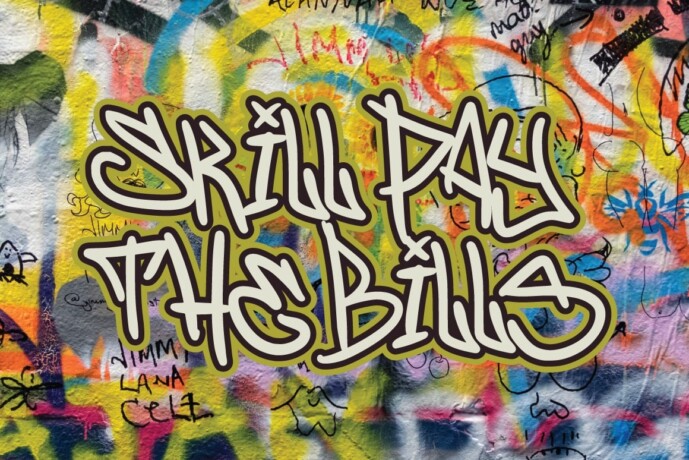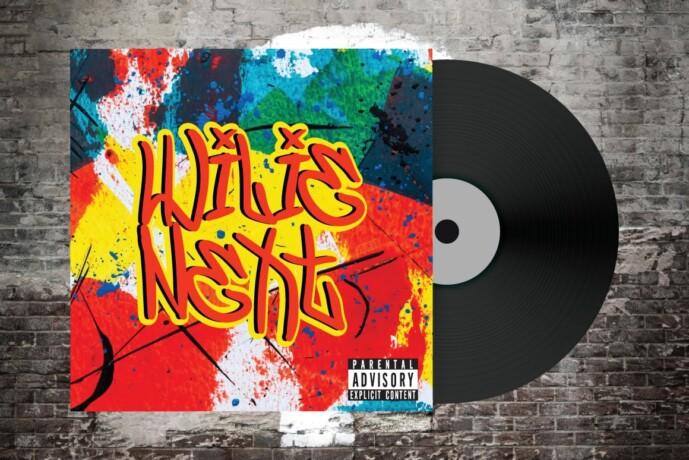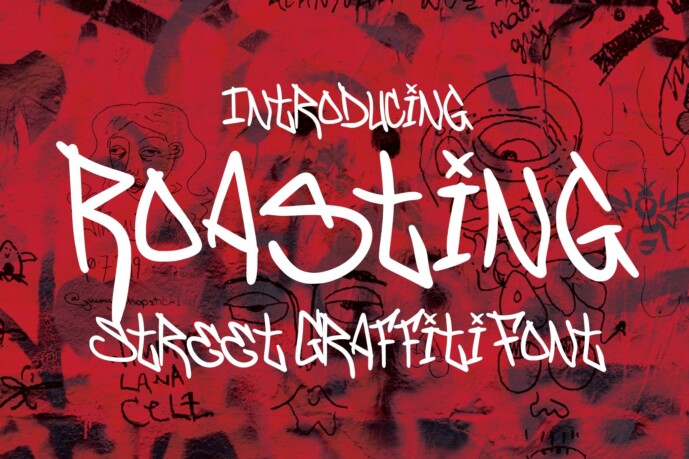
Roasting Graffiti Font
Roasting Graffiti Font, a stylish graffiti font that exudes an elegant and sophisticated vibe. With its fluid strokes and modern aesthetic, Roasting Graffiti Font is the perfect choice for design projects that require a touch of minimalism and of elegance.